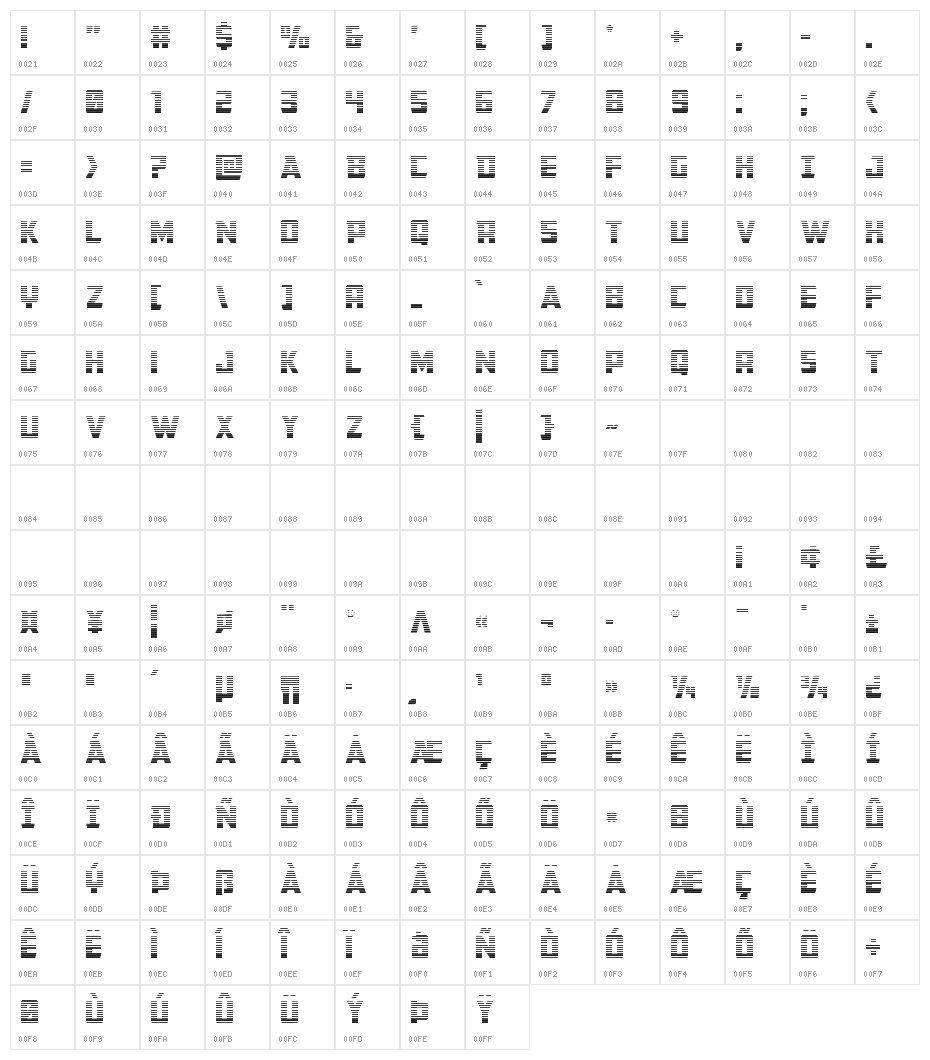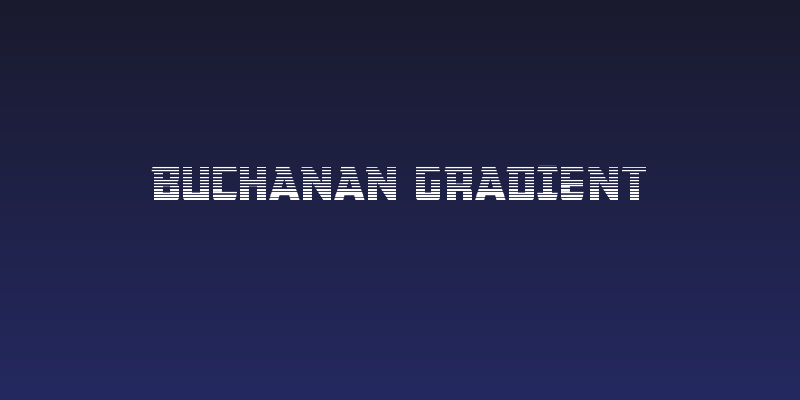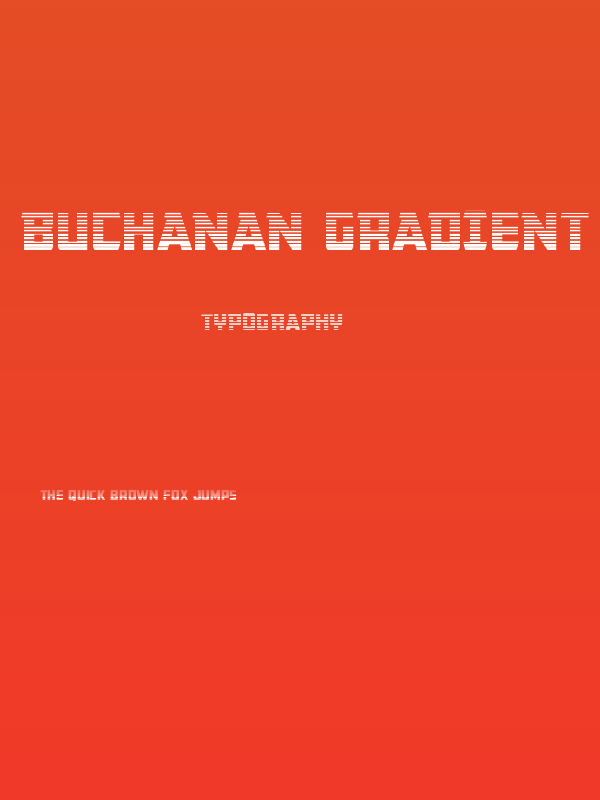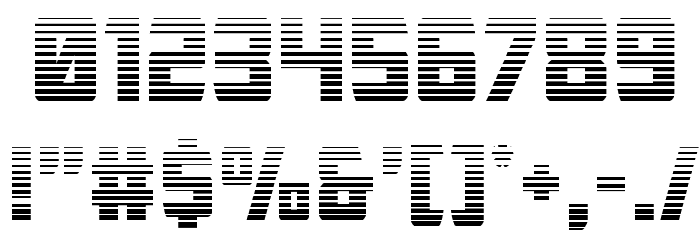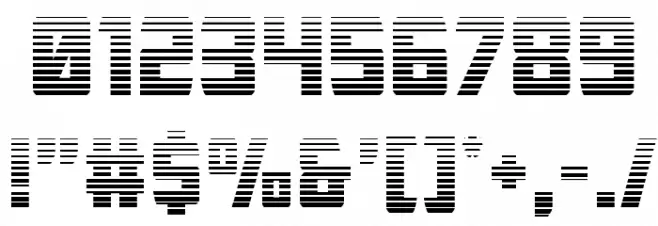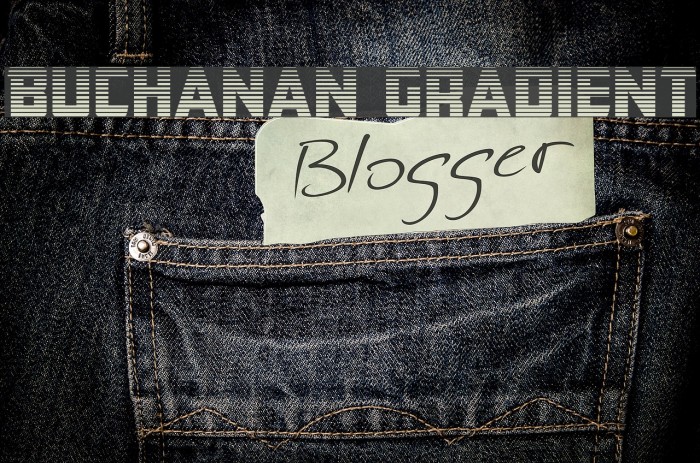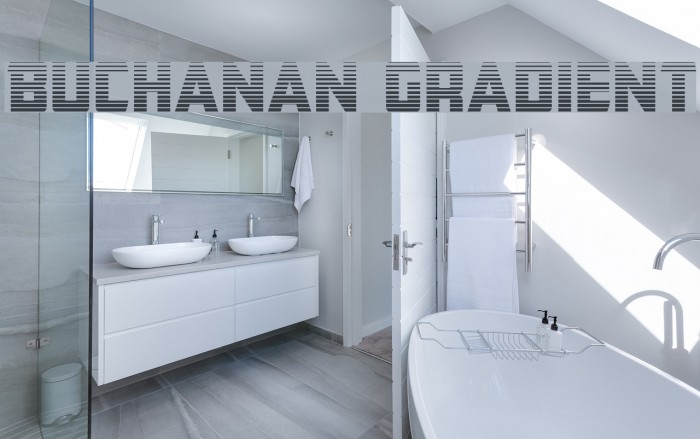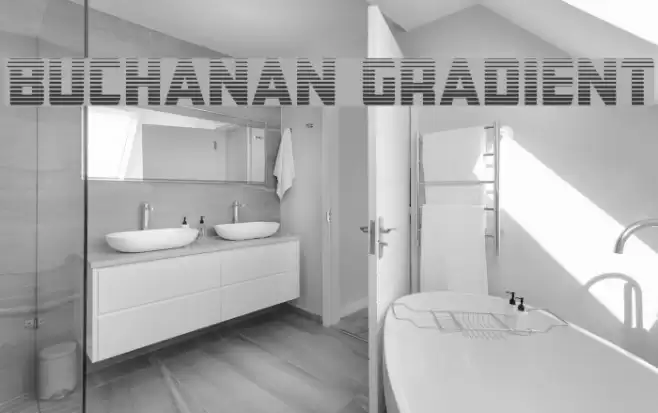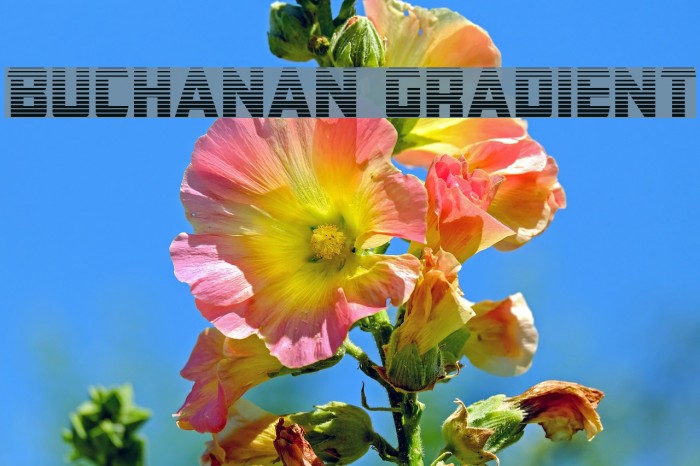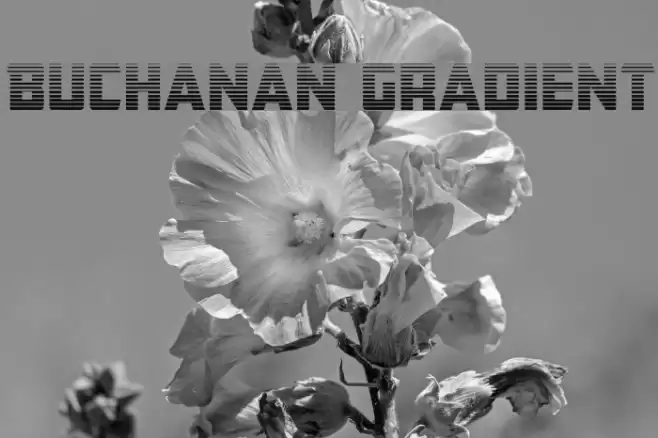
Buchanan Gradient Font
Buchanan Gradient Description
This font features a bold, geometric design with a distinctive striped pattern that creates a gradient effect across each character. The uppercase letters are prominent and commanding, while the lowercase letters maintain the same boldness and style. The numerals and special characters are equally striking, making this font ideal for attention-grabbing designs. The horizontal lines within each character give it a modern and dynamic appearance, suitable for digital and print media. The consistent line thickness throughout the characters ensures a cohesive look, while the unique gradient effect adds a layer of visual interest.
| Proposed Projects | Ideal for branding, posters, headlines, and digital media where a modern and dynamic look is desired. |